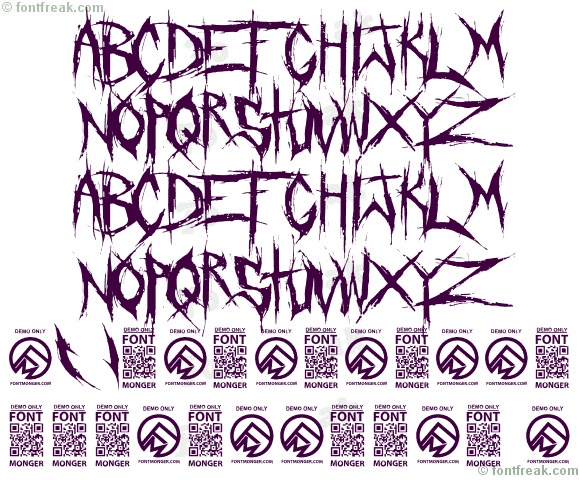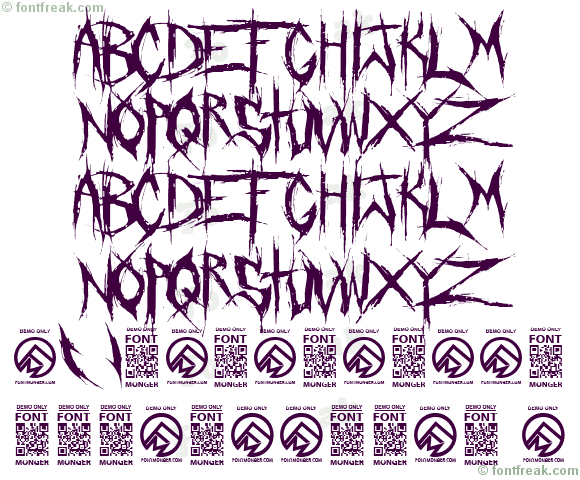
Crucifixion-Regular
Crucifixion Regular
About Crucifixion-Regular
Crucifixion-Regular, designed by Chris Vile, is a striking display font that embodies a unique and edgy aesthetic. This font falls under the decorative category, characterized by its bold, jagged strokes and an unconventional, almost chaotic appearance. The uneven stroke weight and high contrast create a sense of tension, making it visually impactful. The spacing is deliberately tight, enhancing its intense look and feel, which can be perfect for grabbing attention.
This font is ideal for a variety of creative applications. It can be effectively utilized in movie posters, especially for genres like horror or thriller, where a dark and gritty vibe is essential. Additionally, Crucifixion-Regular works well for album covers in the rock or metal music scene, where bold typography can resonate with the audience. It's also a great choice for Halloween-themed event flyers, adding an element of spookiness that aligns perfectly with the occasion. Small business owners seeking to promote a unique brand identity may find this font suitable for edgy merchandise or signage, while graphic designers can use it to create striking visuals that demand attention.
The target audience for Crucifixion-Regular includes graphic designers, small business owners, and content creators looking to make a statement with their typography. Whether you’re crafting a brand logo or designing promotional materials, this font allows for creative expression that stands out.